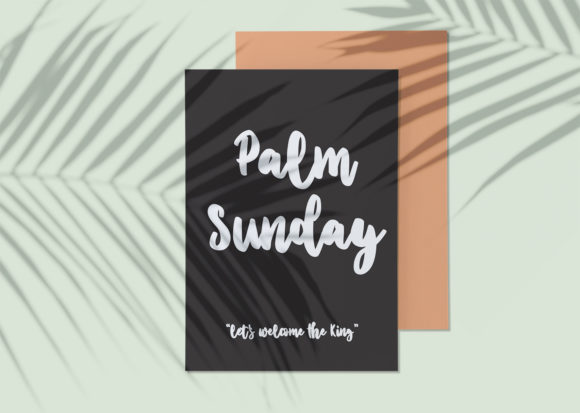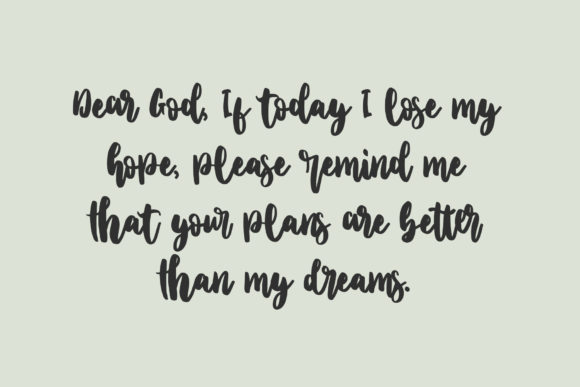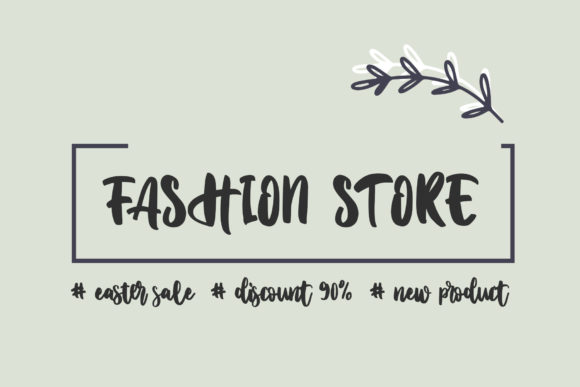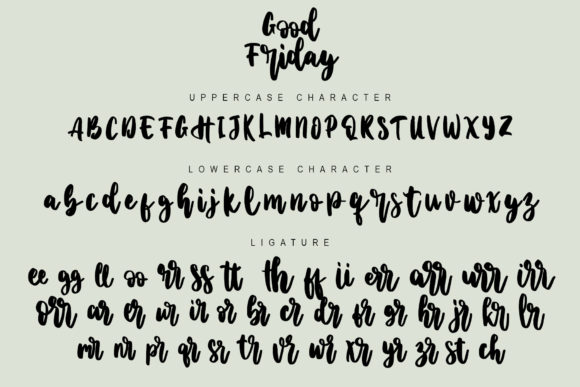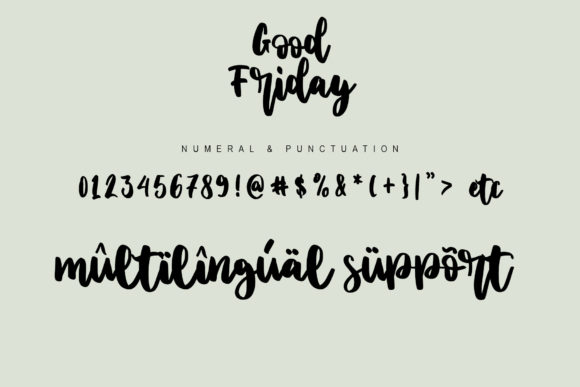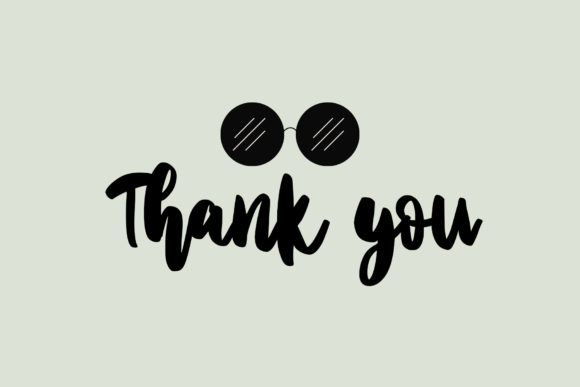
Introducing Good Friday Font: A Cute and Flowing Script to Elevate Your Creative Projects
Are you tired of using the same old fonts for your creative projects? Do you want to add a touch of elegance and sophistication to your designs? Look no further than the Good Friday Font, a beautiful and unique paint-brushed handwritten font that’s sure to make your work stand out.
What Makes Good Friday Font Special?
Good Friday Font is a one-of-a-kind script font that’s been carefully crafted to bring a touch of warmth and personality to your designs. With its flowing, cursive strokes and adorable paint-brushed texture, this font is perfect for a wide range of creative projects, from handmade crafts to digital designs.
One of the standout features of Good Friday Font is its PUA (Private Use Area) encoding. This means that you can access all of the glyphs and swashes with ease, giving you complete control over the look and feel of your text. Whether you’re a designer, crafter, or DIY enthusiast, this font is sure to become a favorite in your collection.
How to Use Good Friday Font in Your Creative Projects
Good Friday Font is incredibly versatile and can be used in a wide range of creative projects. Here are just a few ideas to get you started:
- Handmade Crafts: Use Good Friday Font to add a personal touch to your handmade crafts, such as cards, gift tags, and scrapbook pages.
- Digital Designs: Add a touch of elegance to your digital designs, such as social media graphics, blog posts, and website headers.
- Stationery: Use Good Friday Font to create beautiful stationery, such as invitations, thank-you cards, and letterhead.
- Signs and Displays: Add a pop of personality to your signs and displays with Good Friday Font.
Tips for Getting the Most Out of Good Friday Font
To get the most out of Good Friday Font, here are a few tips to keep in mind:
- Experiment with Different Sizes: Good Friday Font looks great in a variety of sizes, from small and delicate to large and bold.
- Play with Color: The paint-brushed texture of Good Friday Font looks amazing in a range of colors, from bright and bold to soft and pastel.
- Mix and Match: Don’t be afraid to mix and match Good Friday Font with other fonts and graphics to create a unique look.
Why Designers and Crafters Love Good Friday Font
Good Friday Font has quickly become a favorite among designers and crafters, and it’s easy to see why. Here are just a few reasons why:
- Unique and Eye-Catching: Good Friday Font is a one-of-a-kind font that’s sure to grab attention.
- Elegant and Sophisticated: The flowing, cursive strokes of Good Friday Font add a touch of elegance and sophistication to any design.
- Easy to Use: With its PUA encoding, Good Friday Font is easy to use and customize.
If you’re looking for a font that will elevate your creative projects and add a touch of personality to your designs, look no further than Good Friday Font. With its unique paint-brushed texture, flowing cursive strokes, and PUA encoding, this font is sure to become a favorite in your collection. So why wait? Add Good Friday Font to your creative arsenal today and see the difference it can make!
Good Friday Font is a cute and flowing paint-brushed handwritten font. This font is PUA encoded which means you can access all of the glyphs and swashes with ease! . Add Good Friday to your favorite creative ideas and notice how it makes them come alive!